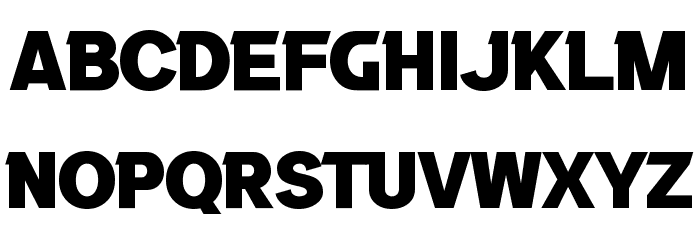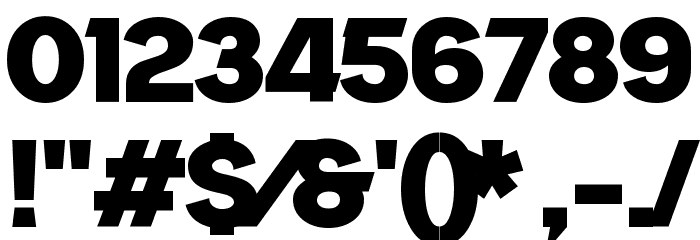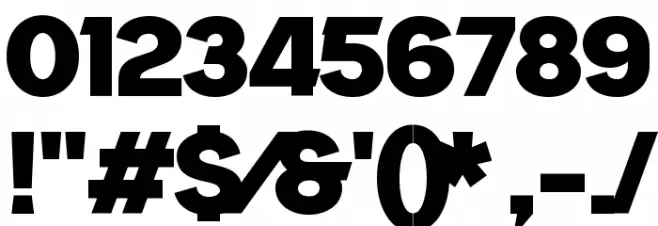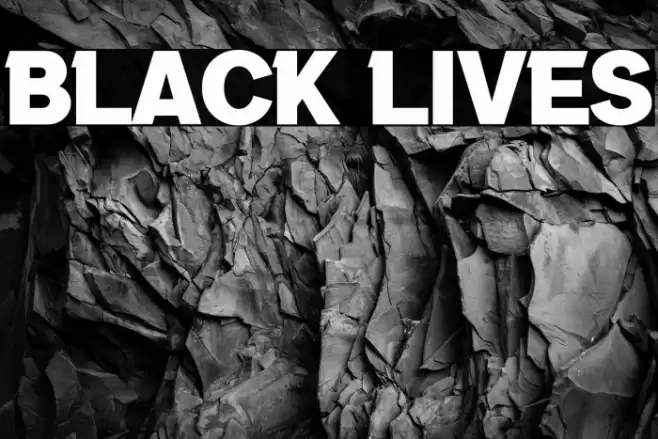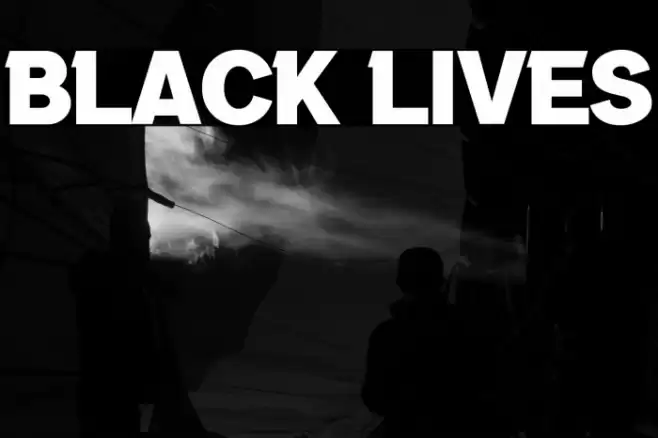
Black Lives Font
This bold and impactful font features thick, uniform strokes that convey strength and authority. The characters are sans-serif, with clean lines and a modern aesthetic. The uppercase letters are particularly prominent, making them ideal for headlines or attention-grabbing text. The numbers and special characters maintain the same boldness and clarity, ensuring consistency across all uses. The overall design is straightforward yet powerful, suitable for a variety of applications where a strong visual presence is required.
A bold, modern sans-serif font with thick, uniform strokes.
- Proposed Projects: Ideal for posters, banners, headlines, and branding materials where a strong, impactful message is needed.